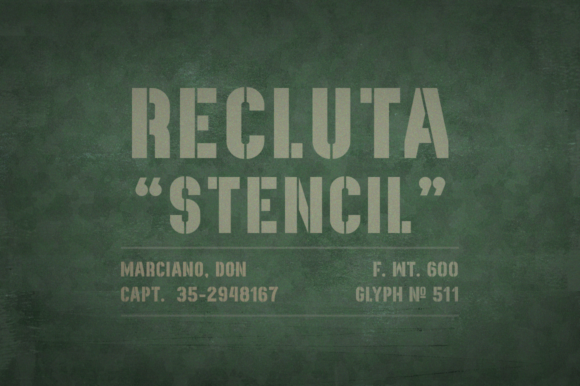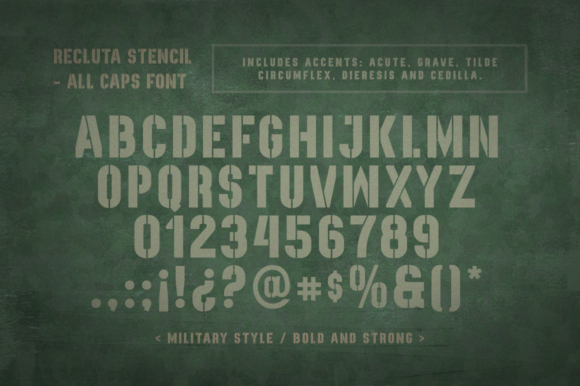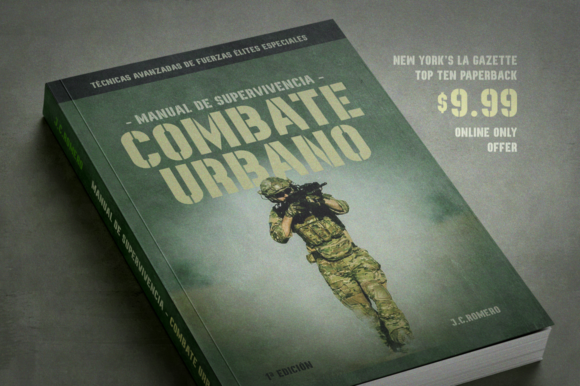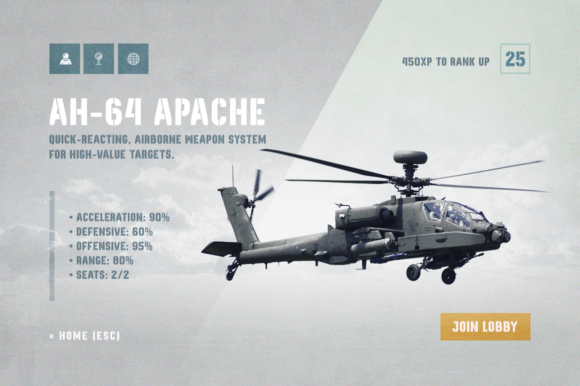
Recluta Font: A Bold Stencil Display Font for Creative Logo Design
About the Recluta Font
Presenting Recluta Font, a unique and stylish typeface that will make your work stand out. Recluta is a military bold stencil inspired font. This display font is the perfect font for making original and outstanding designs.
Recluta’s strong, bold forms make it ideal for headlines, posters, and branding projects requiring a powerful, authoritative presence. It excels in short, impactful text applications, such as logos, signage, and short marketing slogans. Avoid using Recluta for body copy or lengthy paragraphs; its weight and spacing are not optimized for readability in extended text.
Its military stencil inspiration lends itself well to brands projecting strength, reliability, or a vintage aesthetic. Consider pairing Recluta with a clean sans-serif like Open Sans for a contemporary contrast, or a more traditional serif such as Merriweather for a classic, balanced feel. A script font like Great Vibes could add a touch of personality to logos or other design elements, provided it’s used sparingly.
Recluta’s core personality is bold and assertive, yet retains a degree of classic military styling. This makes it versatile for projects ranging from rugged outdoor brands to more sophisticated military-inspired fashion or design concepts.